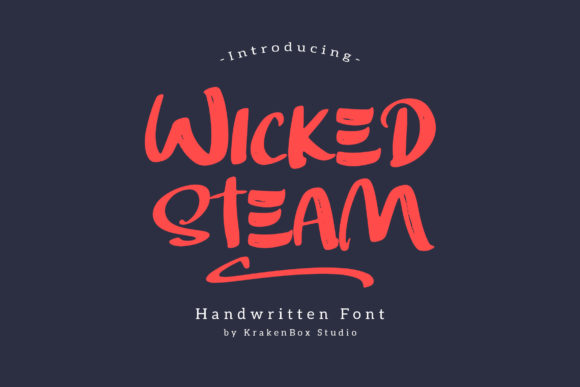
Dive into the world of Wicked Steam Font: A captivating handwritten font brimming with character and charm. Inspired by the raw energy of steam, this font propels your designs to new heights. Its bold, sweeping strokes and dynamic curves evoke a sense of urgency and movement, making it the perfect choice for captivating book title pages or eye-catching branding. The Wicked Steam Font is more than just a typeface; it's an artistic expression that brings life to your creations.
With its untamed and unpredictable nature, the Wicked Steam Font commands attention, leaving an indelible mark on your audience. Each character is a testament to the passion and dedication poured into its creation. The font's free-flowing style exudes a raw, organic feel that resonates with authenticity and creativity. Whether you're a seasoned designer or a creative enthusiast, the Wicked Steam Font is your gateway to unleashing your imagination and crafting designs that captivate and inspire.
Step into the realm of the Wicked Steam Font and let your visions take flight. Its versatility knows no bounds, effortlessly adapting to a myriad of designs, from book title pages that entice readers to explore hidden worlds to branding that radiates boldness and confidence. Unleash the power of this font to leave a lasting impression and ignite a spark of inspiration in all who encounter your creations.
So, embrace the untamed spirit of the Wicked Steam Font and watch as your designs come alive with an energy that captivates and compels. Let your creativity run wild, knowing that this font is your ally, ready to transform your ideas into tangible masterpieces. Welcome to the world of the Wicked Steam Font, where wild strokes and free-flowing lines craft a symphony of visual delight. Immerse yourself in its untamed beauty and let your designs soar to new heights of brilliance.